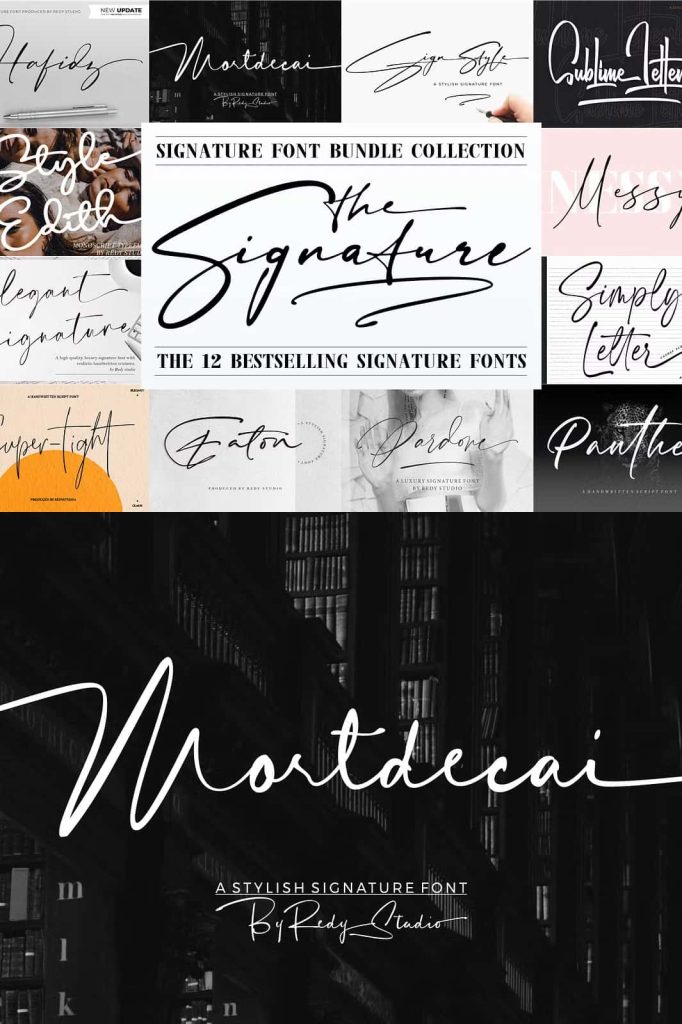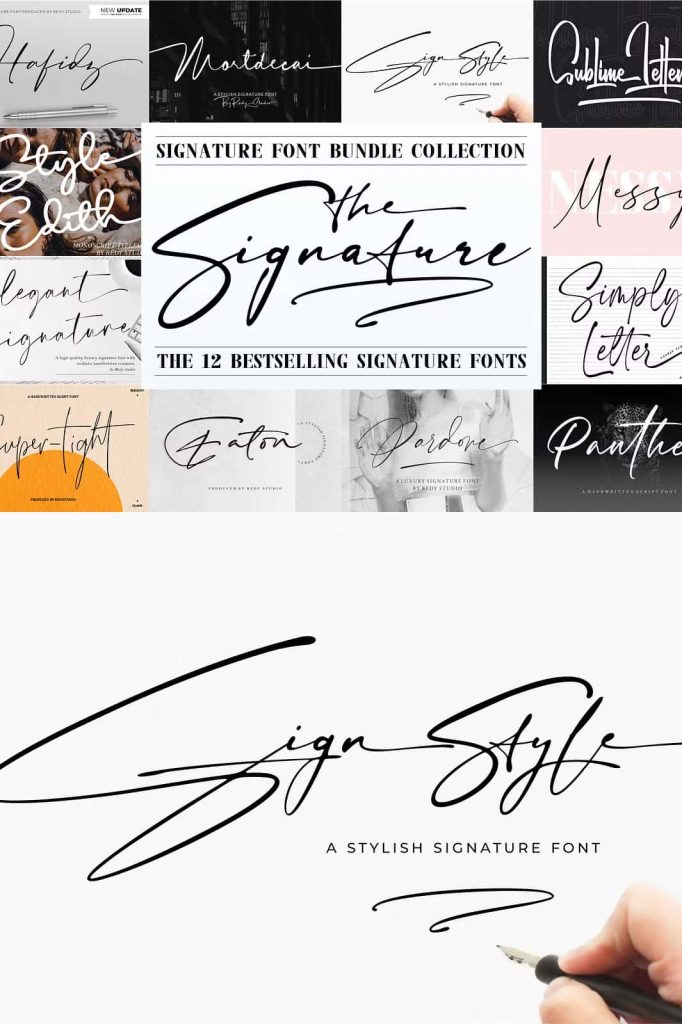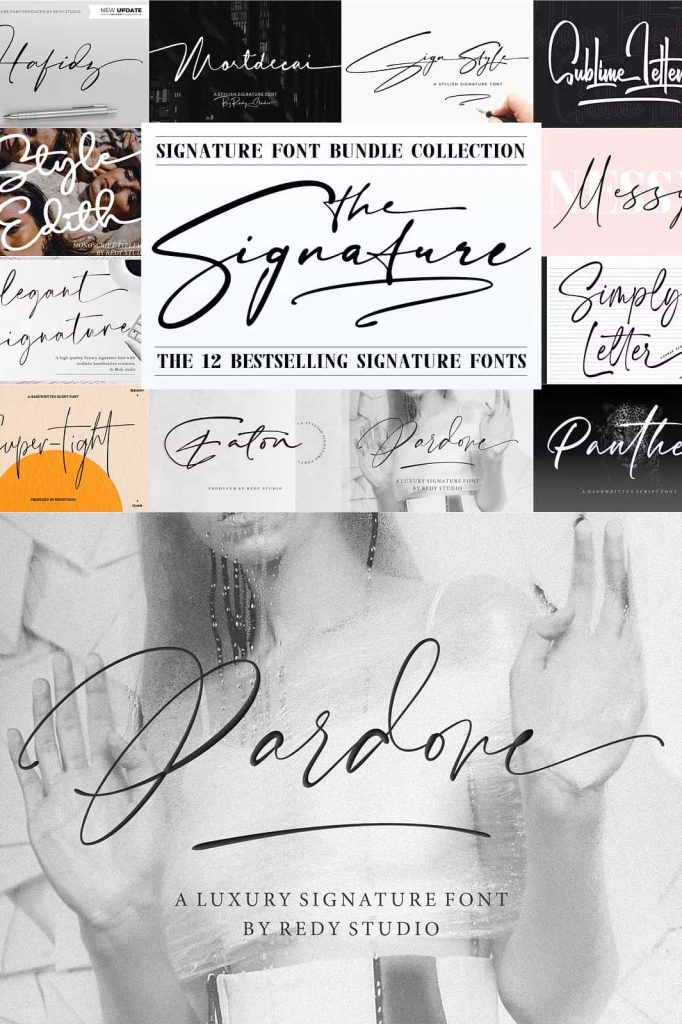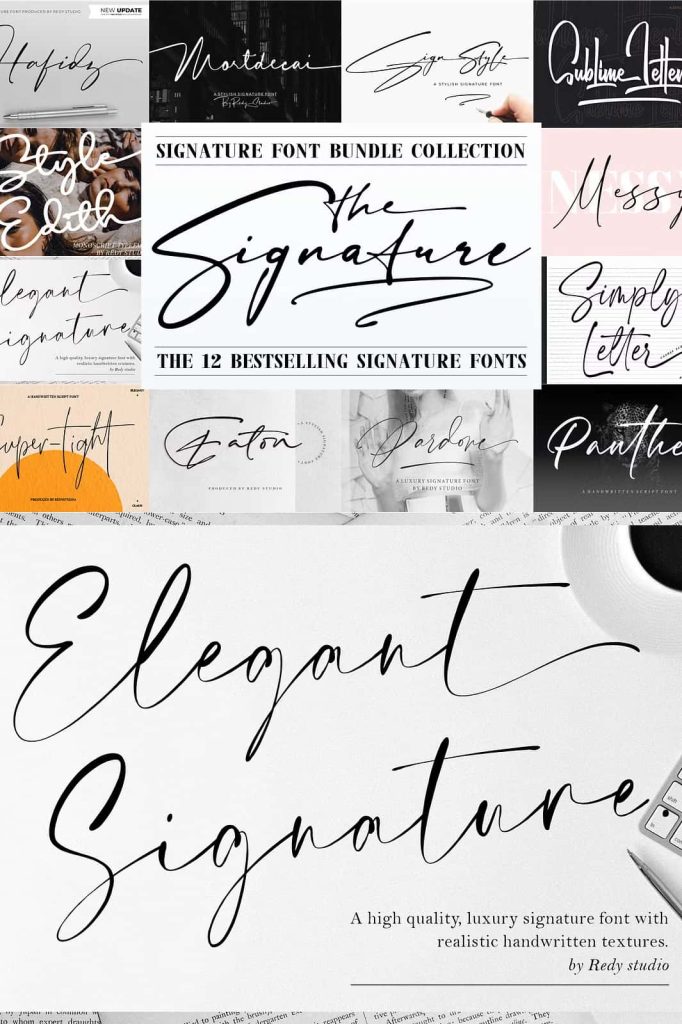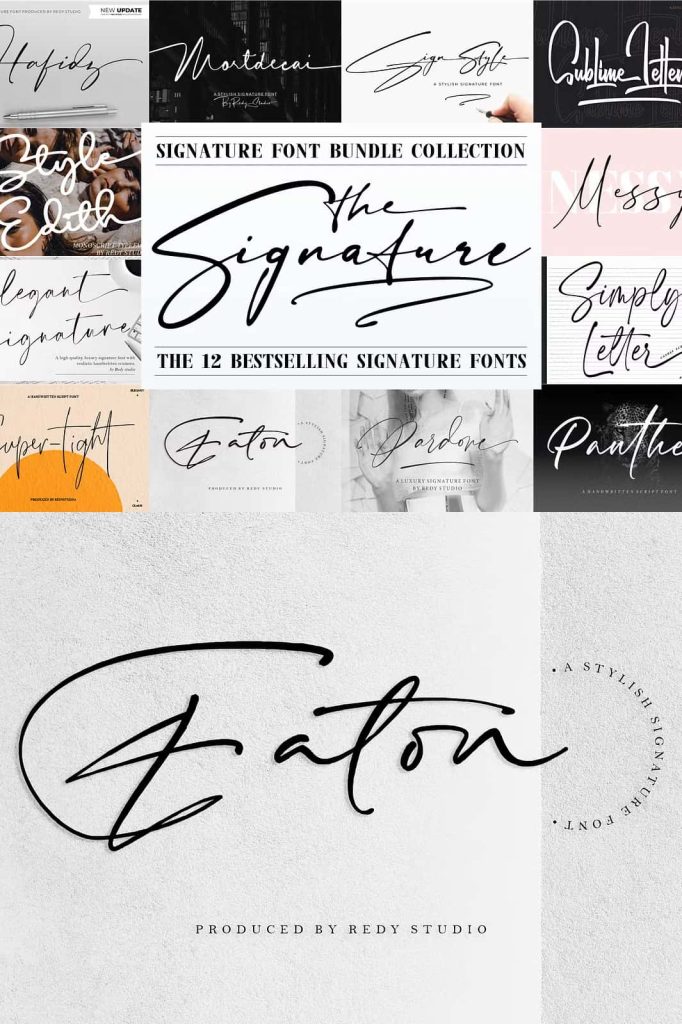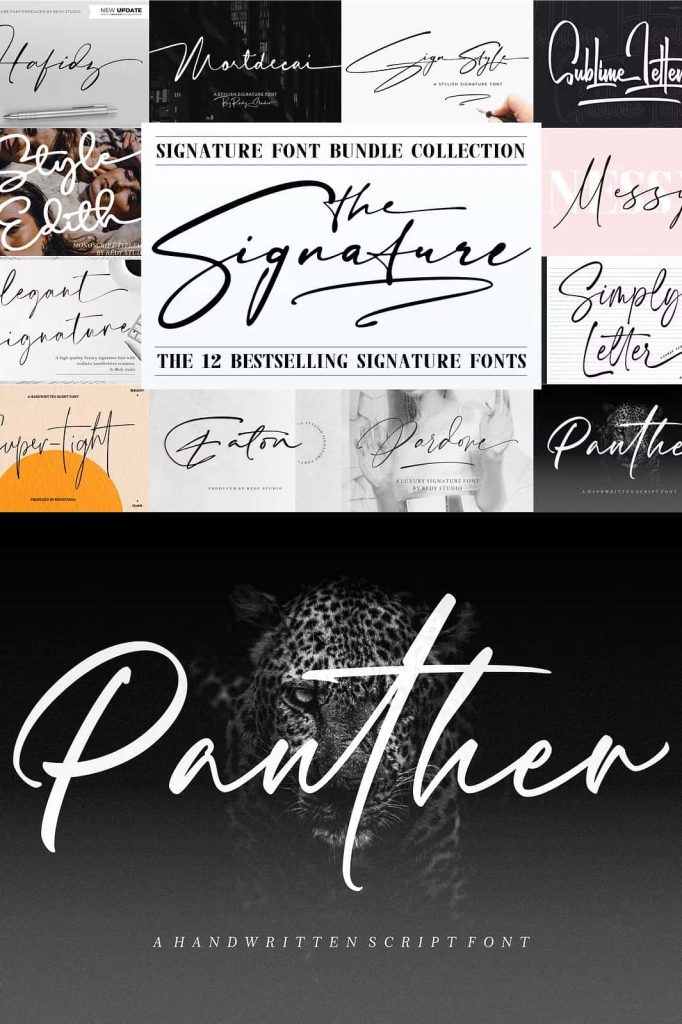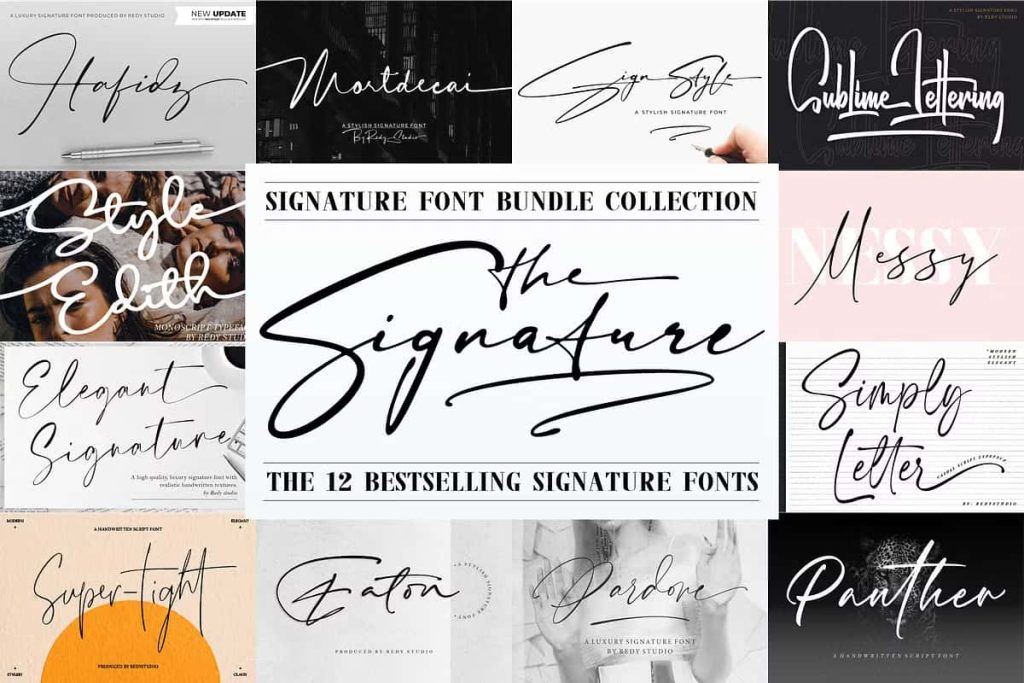
The Signature Font Bundle CollectionleastedJune 21, 2025Fonts The Signature Font Bundle Collection is a meticulously curated compilation of signature fonts Download